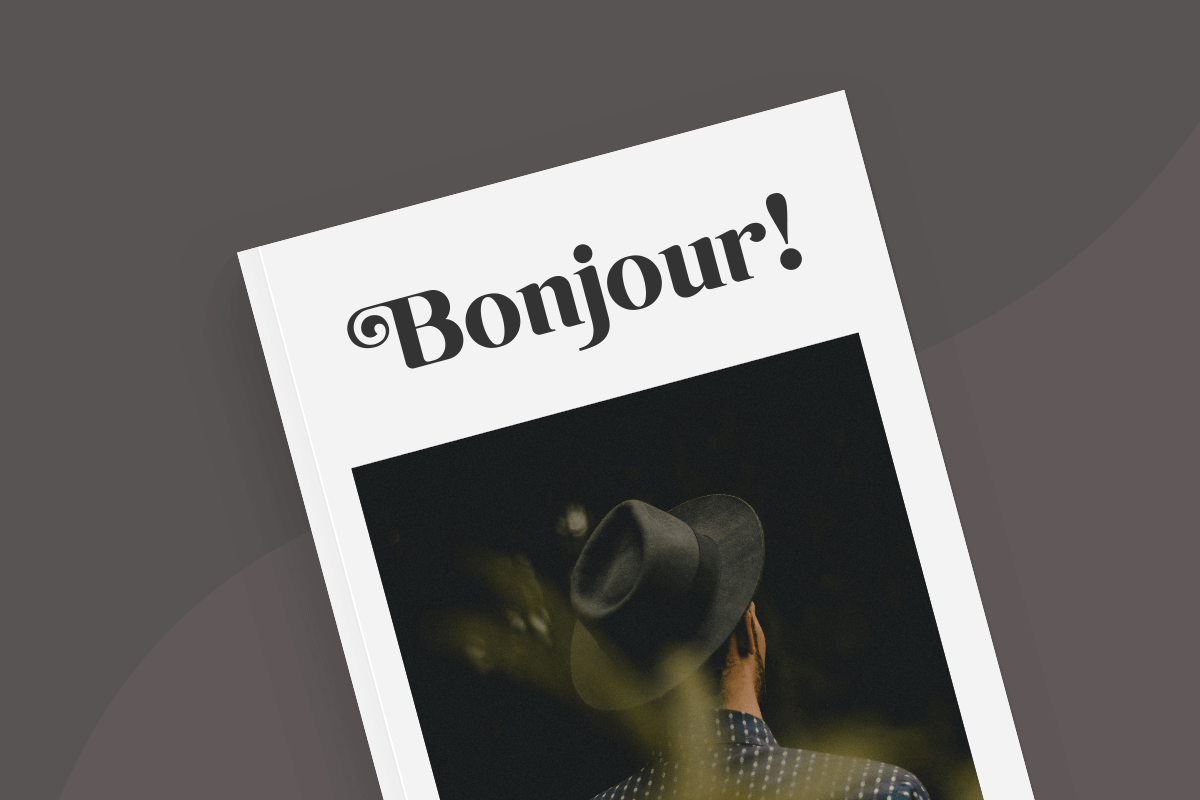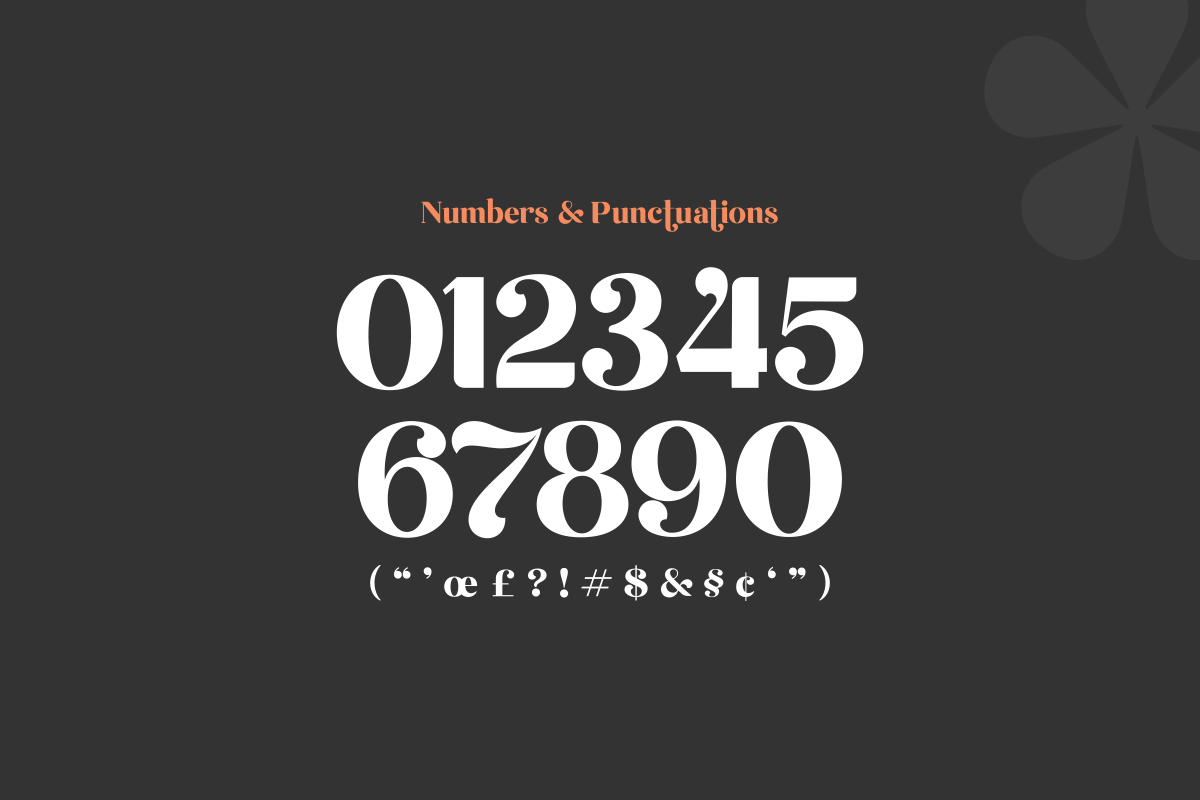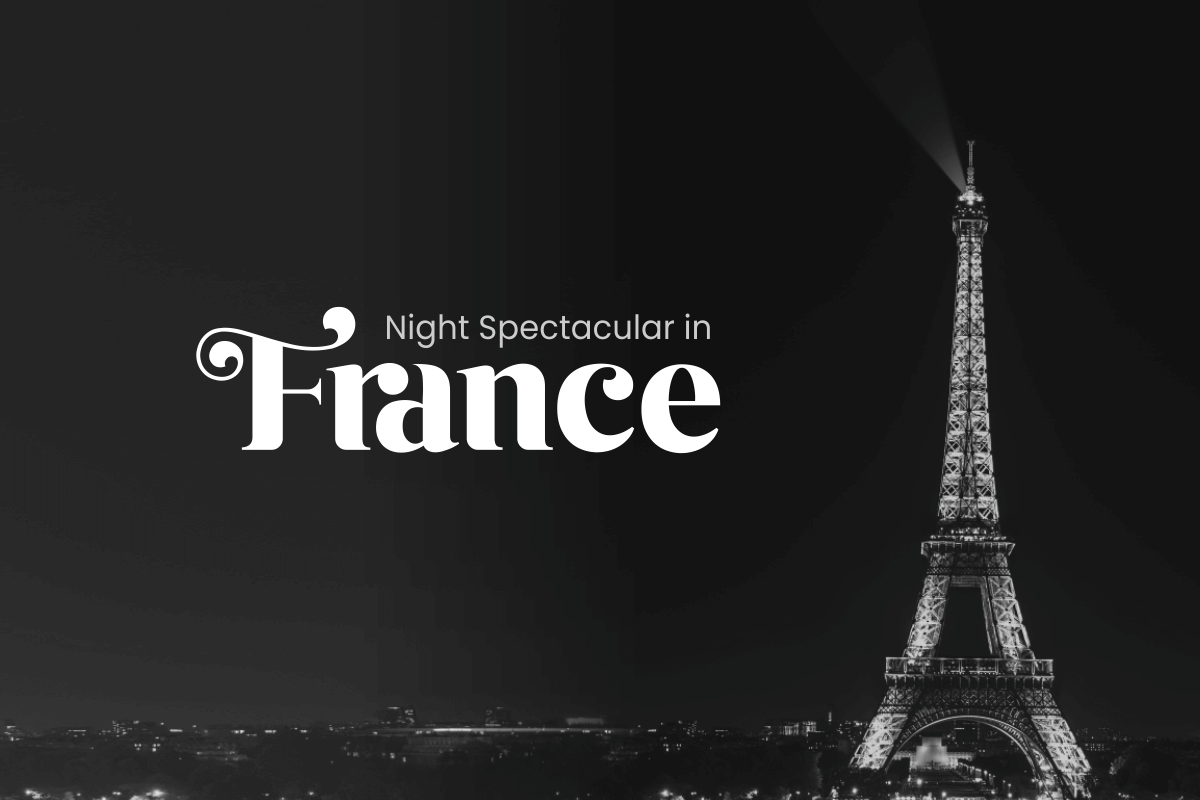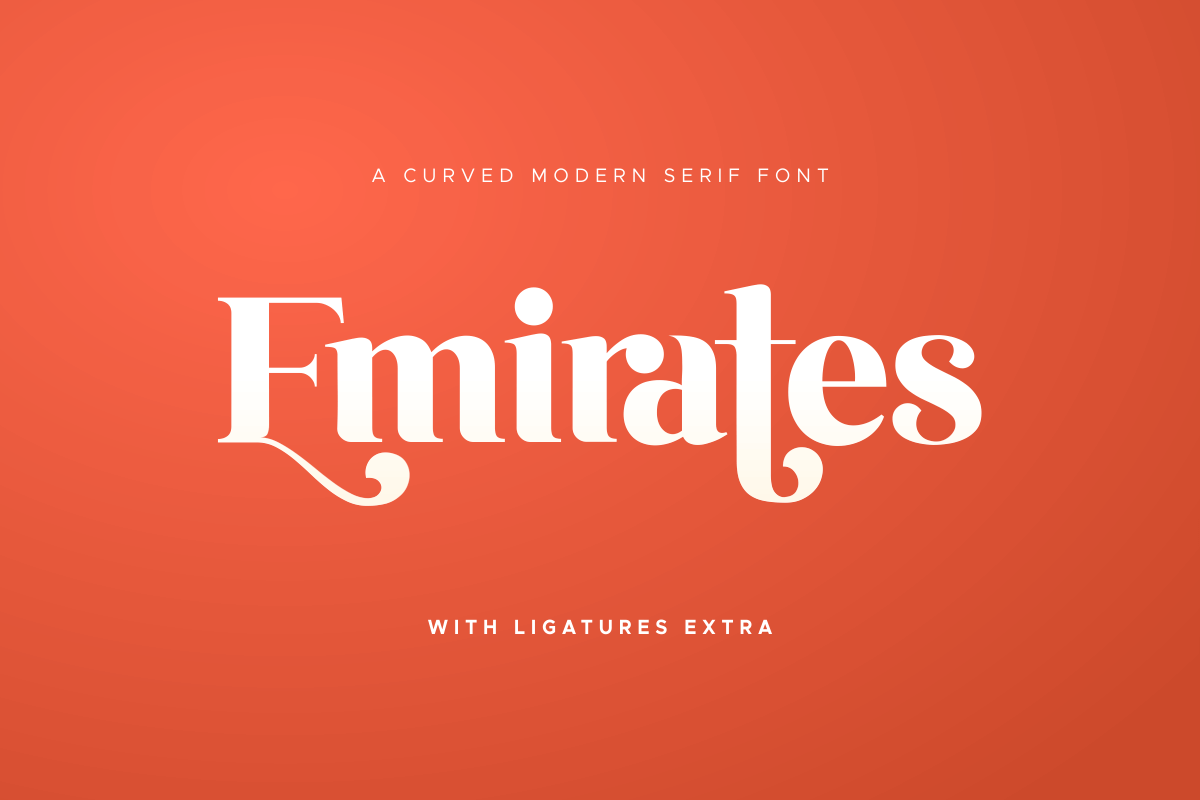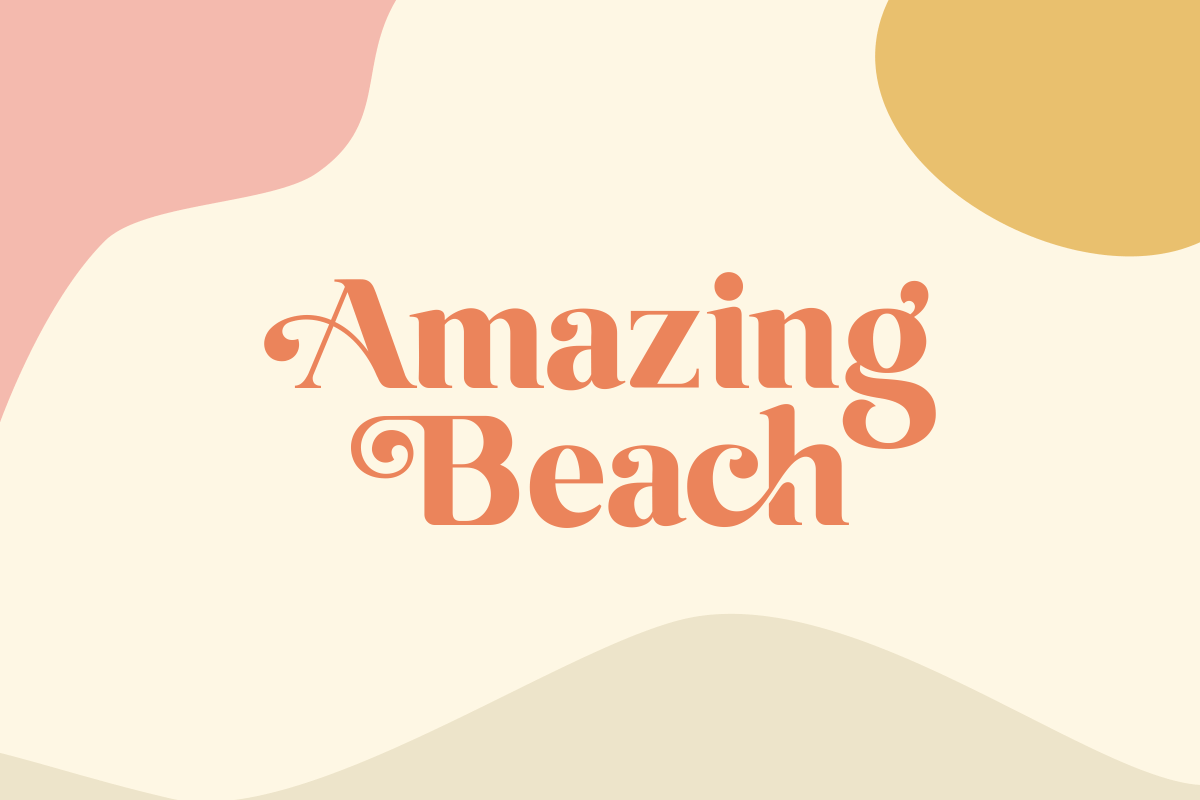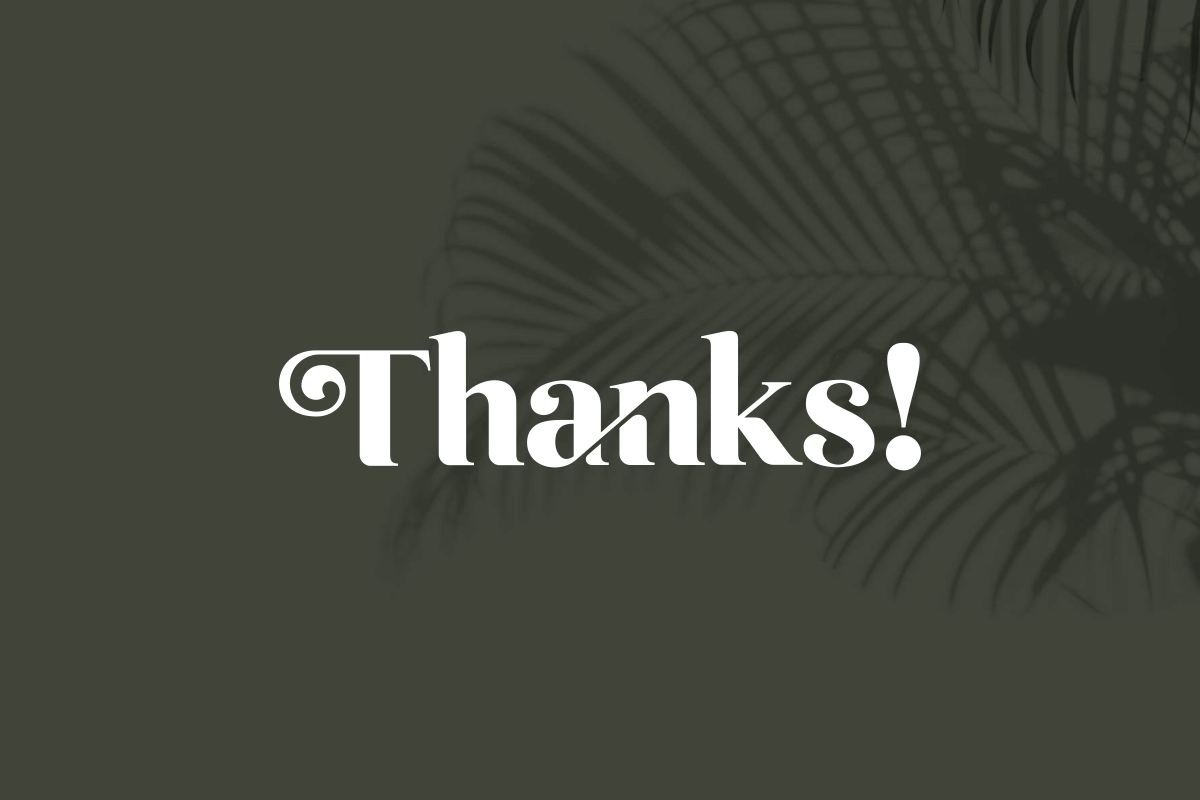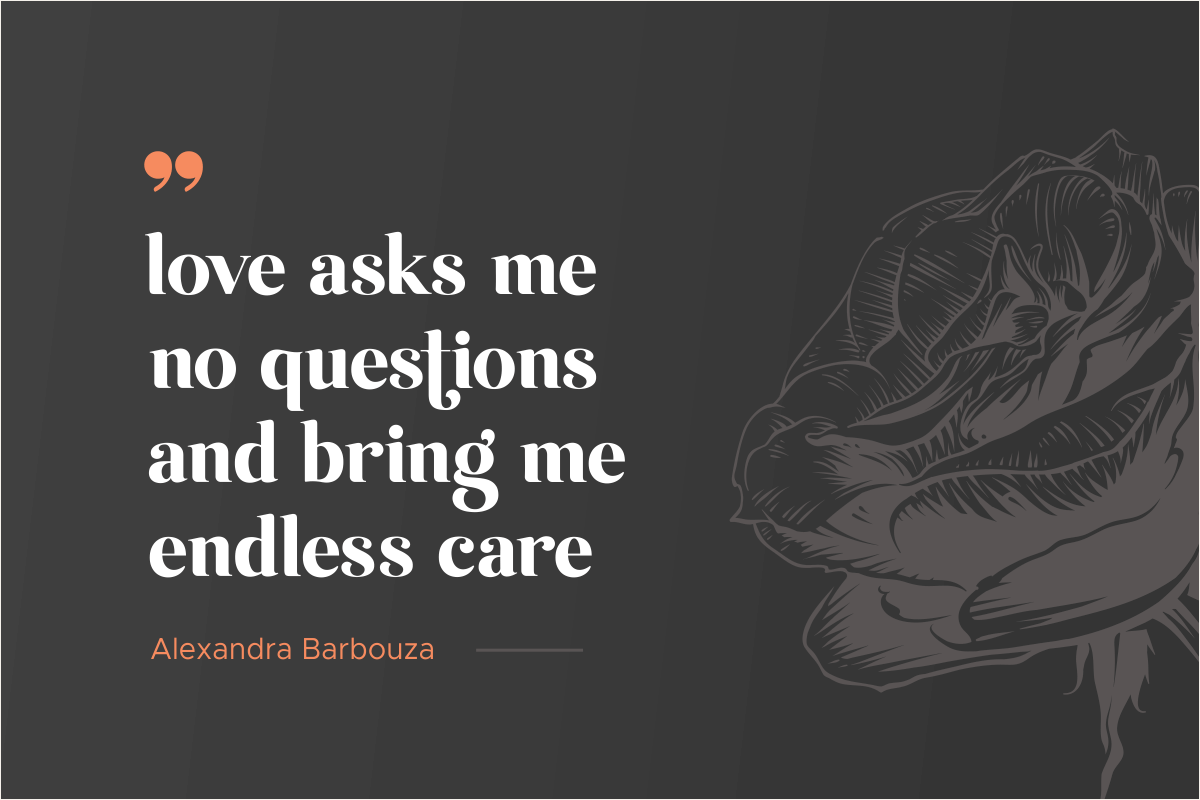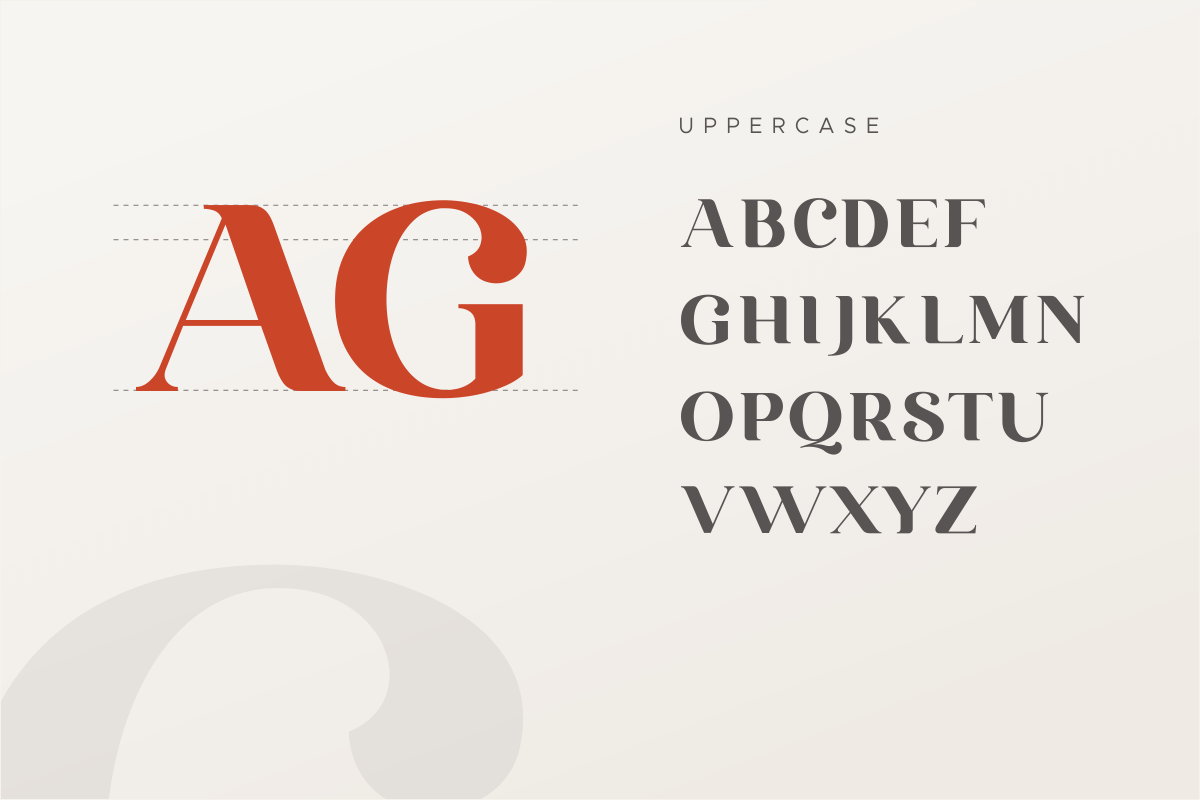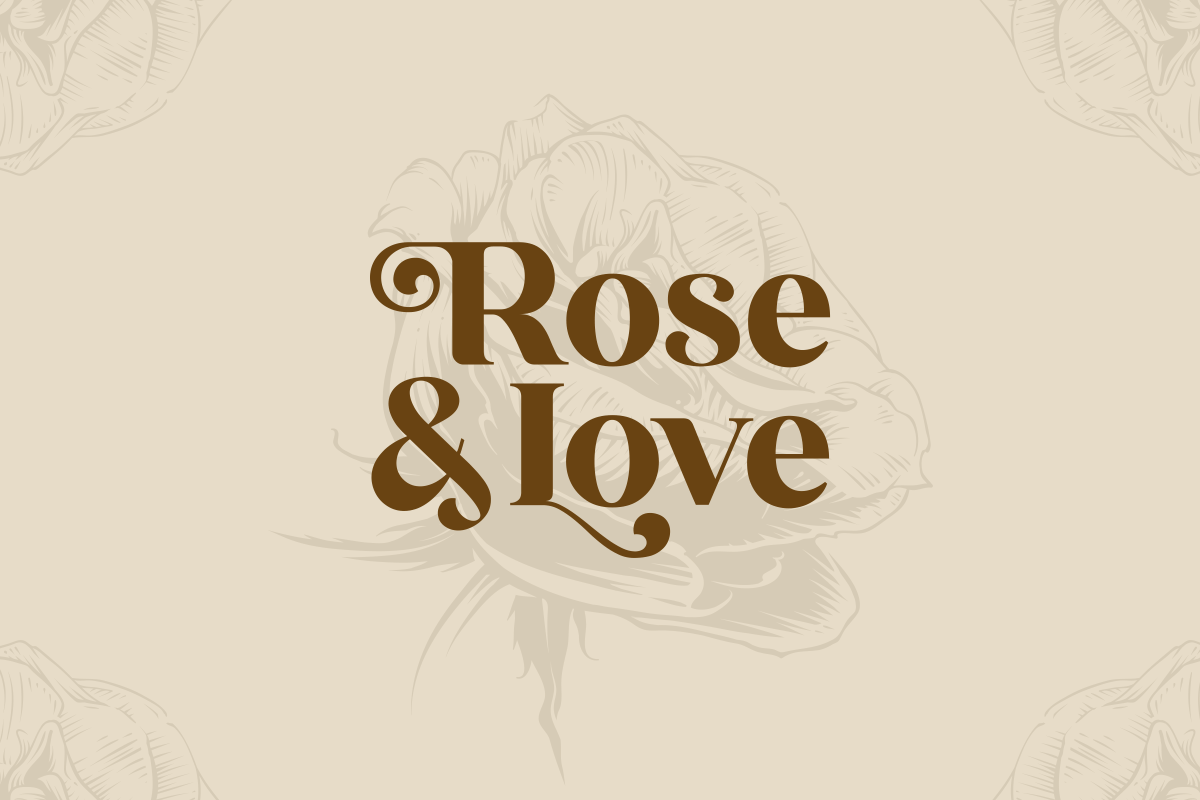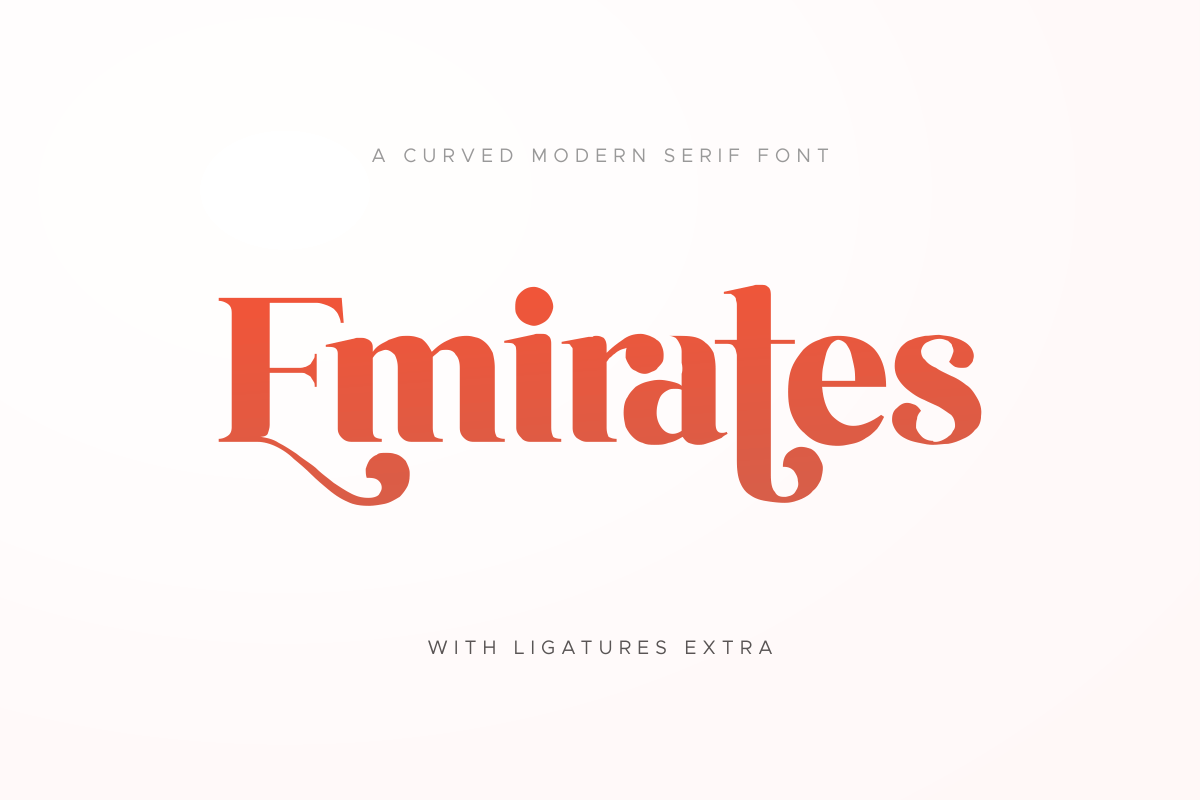
Emirates - Beautiful Curved Font
Emirates font is a well-balanced contemporary font with beautiful curved and ligatures. It is a display serif font with moderate contrast that perfect for branding projects, logo, wedding designs, social media posts, advertisements, product packaging, product designs, label, photography, watermark, invitation, stationery, and any projects, it makes with a high level of legibility.
Character set A-Z
Accented Characters (West Europe)
Ligature & Stylistic alternate